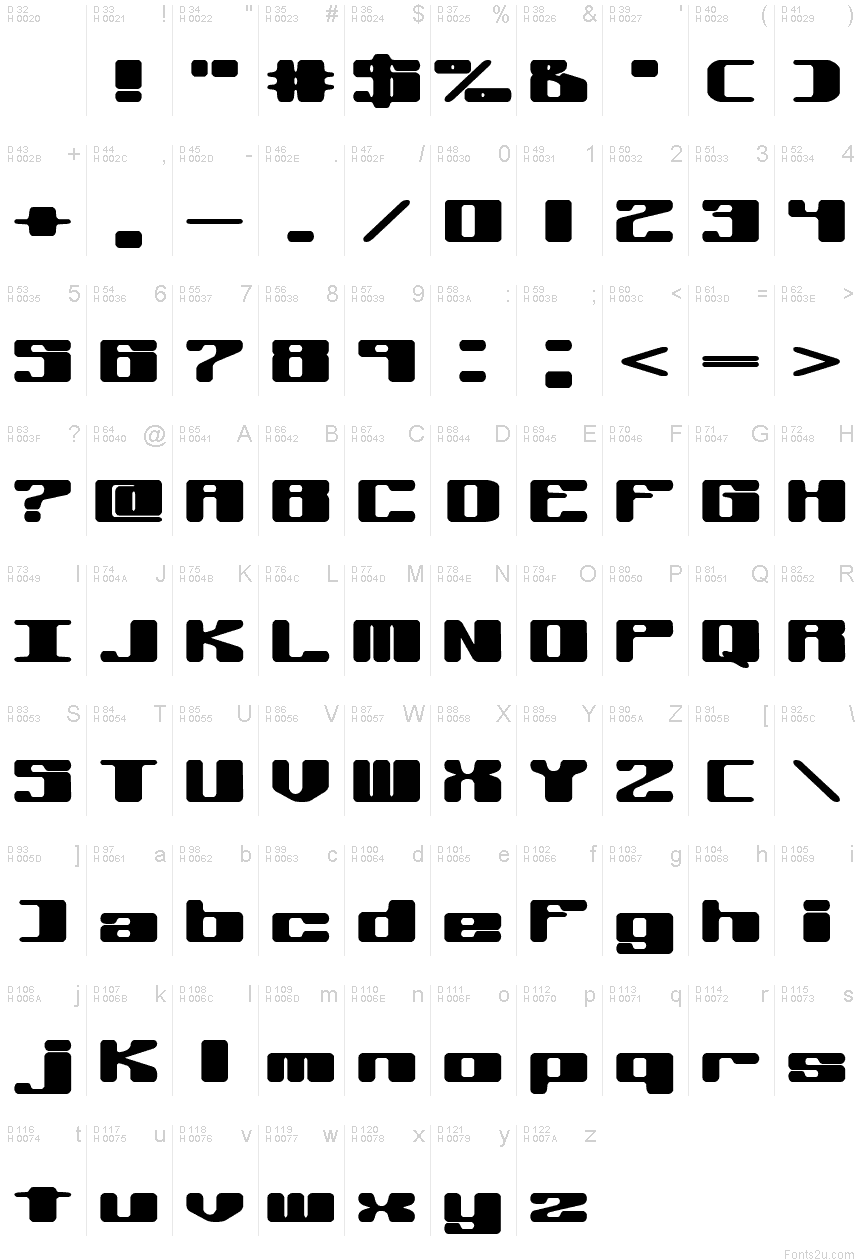
Off Kilter R -BRK-
Off Kilter R, a free techno display font by ÆNIGMA FONTS, uses rounded block forms and offset corners to create a slightly askew structure. The repeated curves, clipped joins, and squared openings keep the lettering mechanical while giving it a crooked, custom-built rhythm.
It carries enough presence for logo marks, poster headlines, game titles, album artwork, signage, and short promo graphics. The strong block shapes hold together best in brief phrases where a graphic, techy edge matters more than long reading at length on screen.